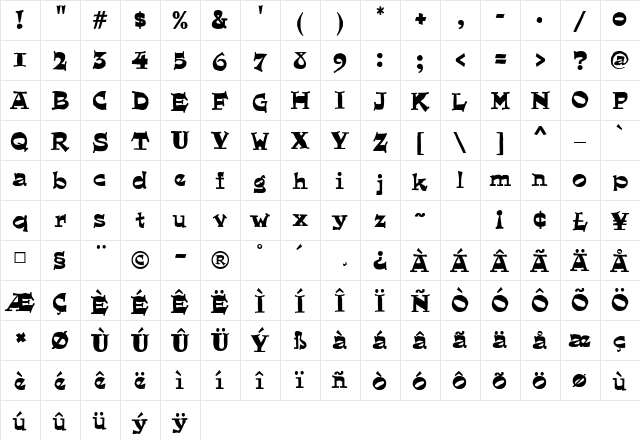
Quaint Regular
Design Context for Quaint Typeface
Quaint is a composed and adaptable typeface that performs quietly and consistently across a wide range of design contexts.